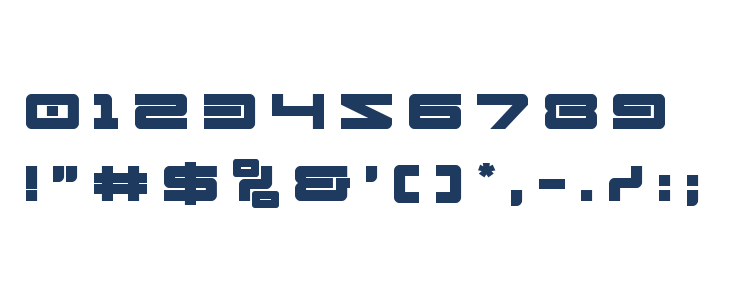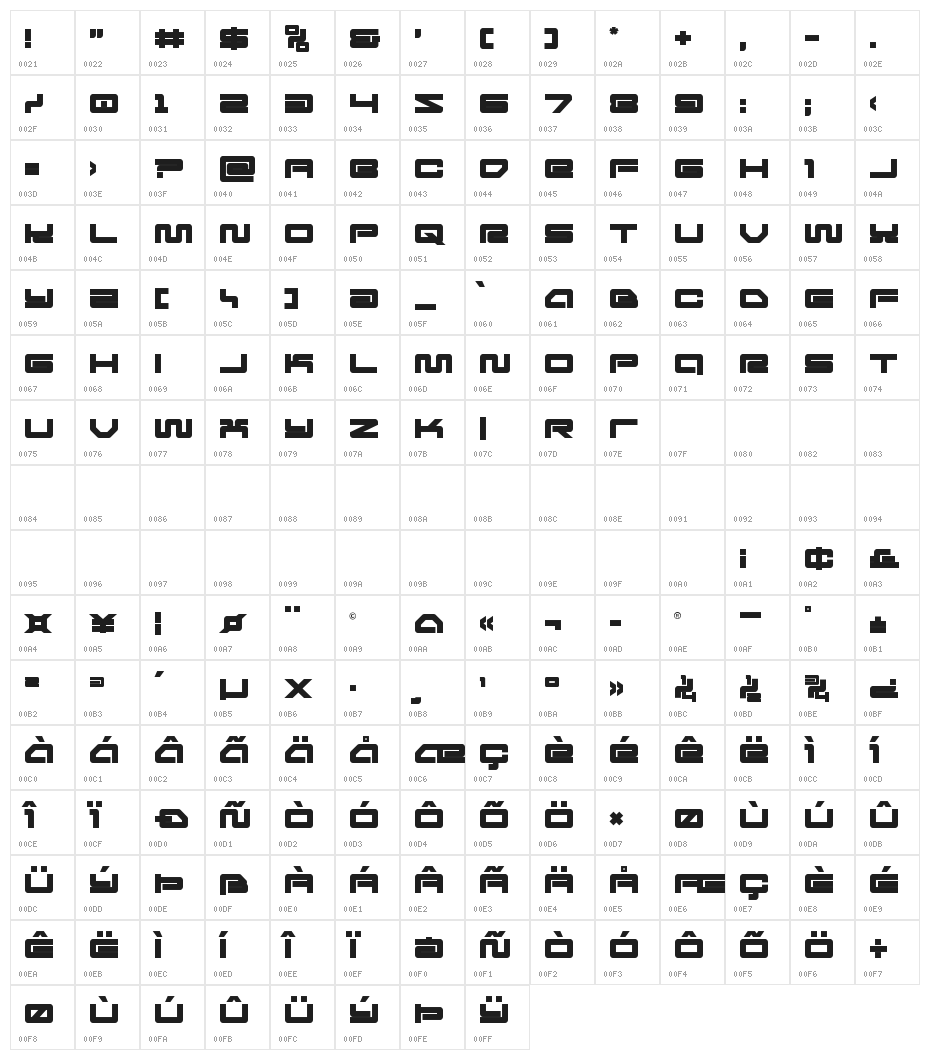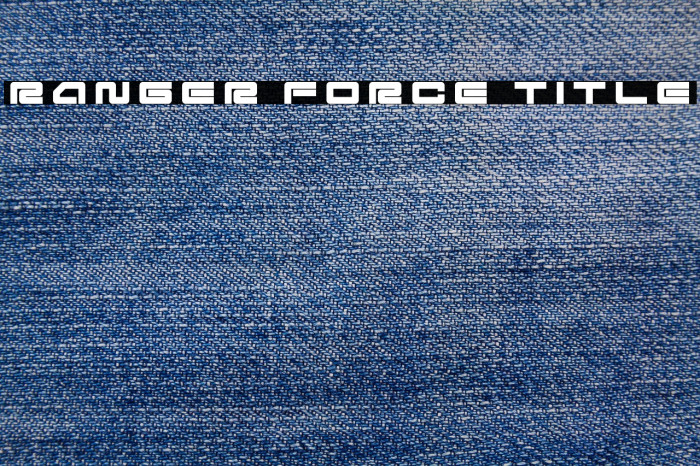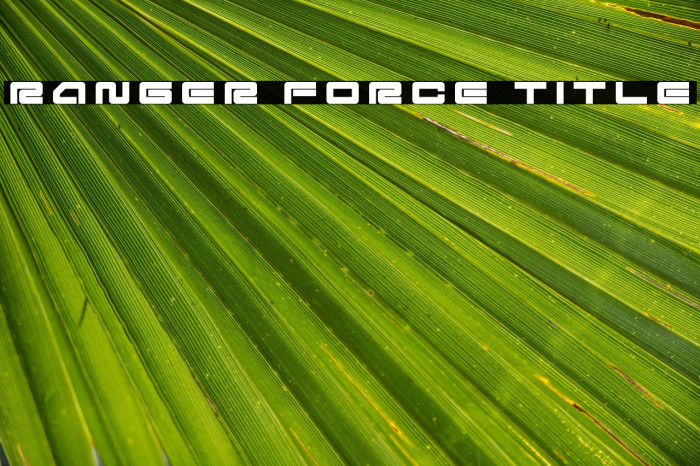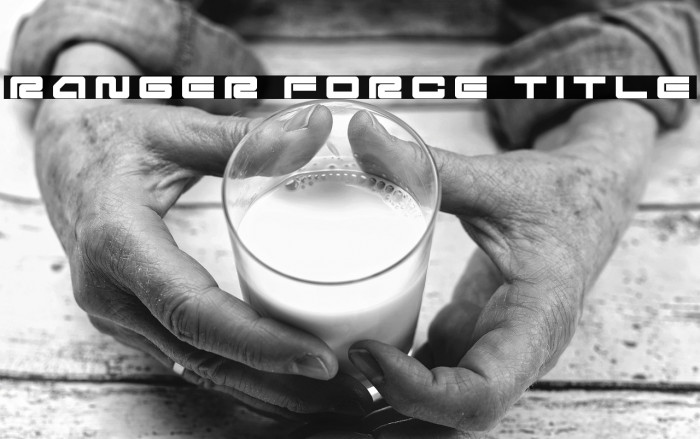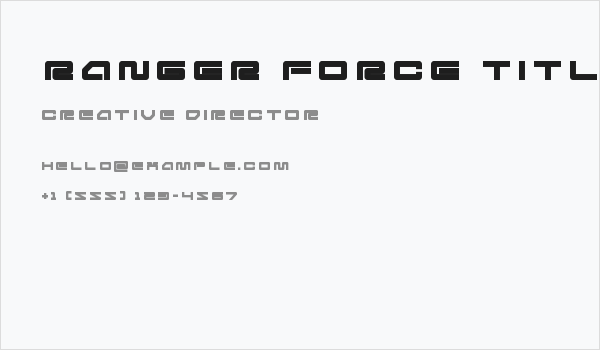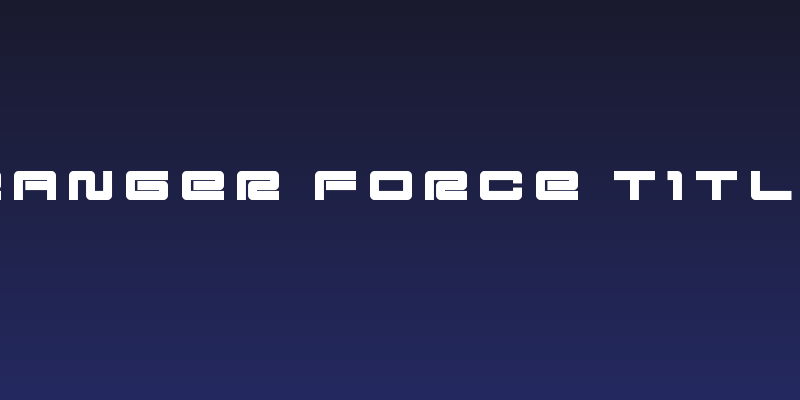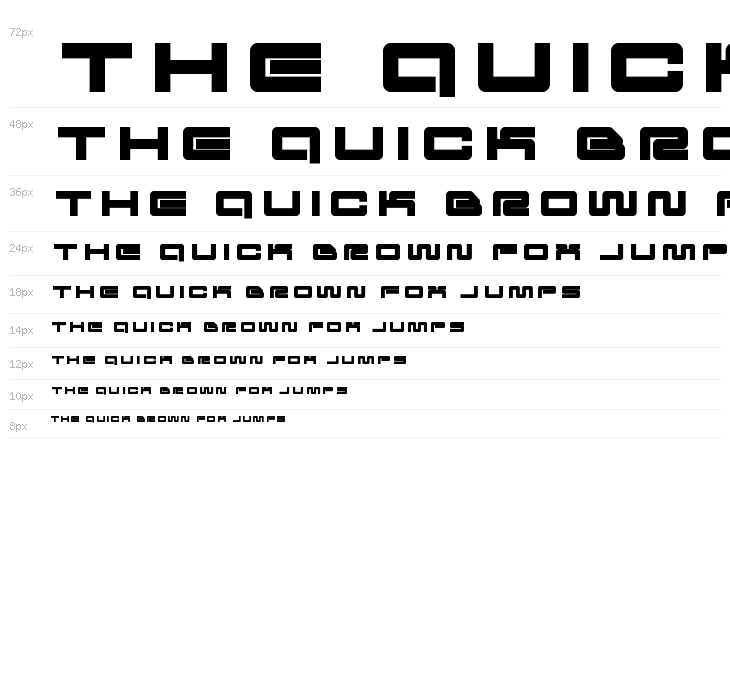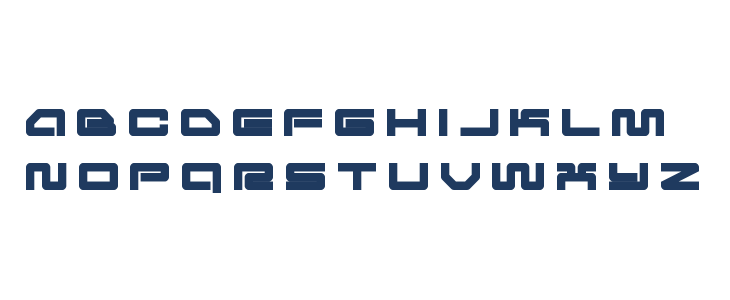
Ranger Force Title Font
Ranger Force Title Description
This font exhibits a bold, futuristic design with a strong geometric structure. The characters are uniformly wide, featuring sharp angles and a blocky appearance that conveys a sense of strength and modernity. The uppercase and lowercase letters maintain a consistent style, with the lowercase being slightly smaller but equally bold. The numerals and special characters follow the same design principles, ensuring uniformity across all glyphs. The font's distinct style makes it ideal for projects that require a modern, tech-inspired aesthetic. Its boldness and clarity make it suitable for impactful headlines and titles.
| Proposed Projects | Ideal for technology branding, sci-fi movie posters, video game titles, and modern advertising campaigns. |